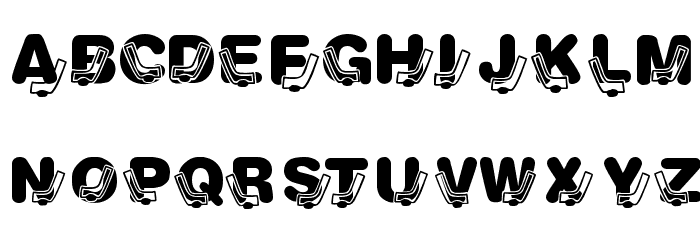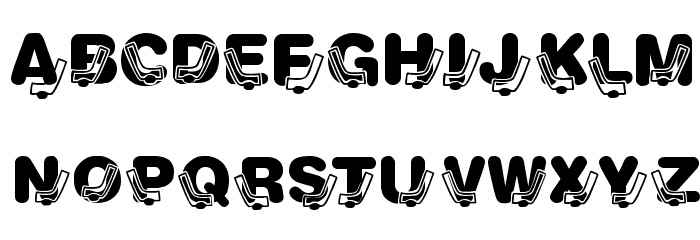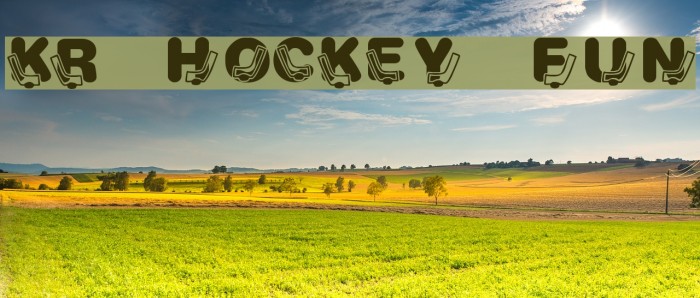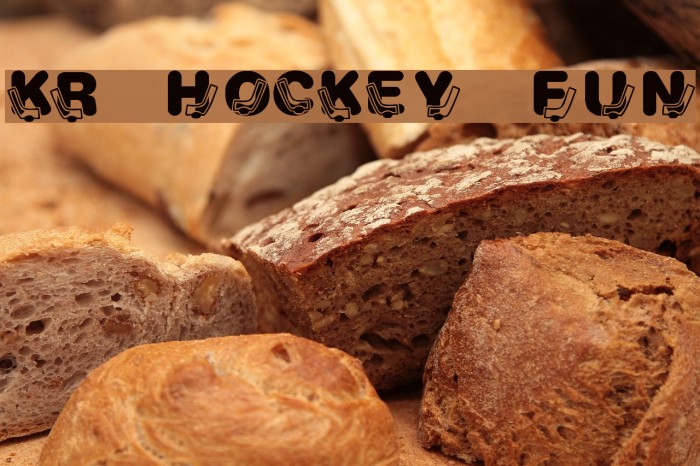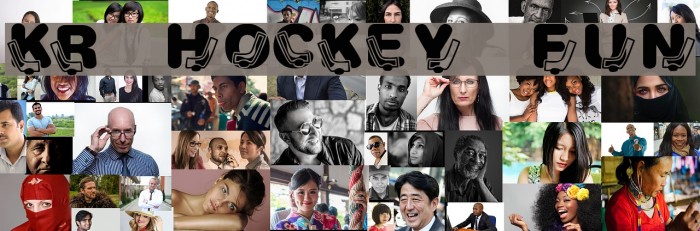
KR Hockey Fun Font
This playful and thematic font incorporates elements of hockey equipment into each letter, creating a unique and sporty aesthetic. The bold, blocky characters are adorned with hockey sticks and pucks, adding a dynamic and energetic feel. The font maintains a consistent thickness throughout, with a medium contrast between the strokes. Its decorative style makes it ideal for projects that require a fun and engaging look, particularly those related to sports or youth activities. The characters are evenly spaced, ensuring readability while maintaining the playful theme.
A bold, hockey-themed decorative font with integrated sports elements.
- Proposed Projects: Perfect for sports team branding, event posters, children's sports programs, and themed merchandise.